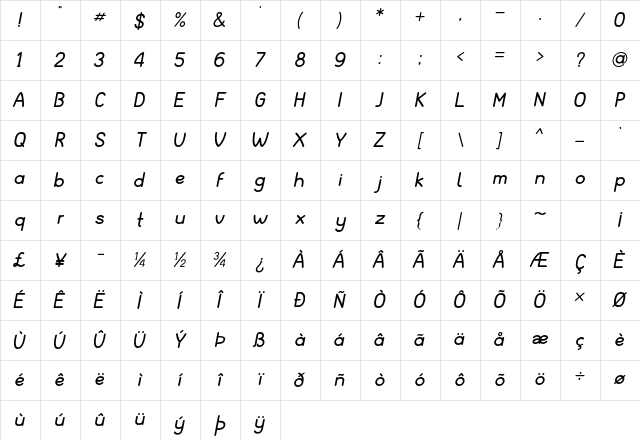
Idion is a composed and adaptable typeface that performs quietly and consistently across a wide range of design contexts. The slanted form adds forward momentum and visual energy.
Pro Tip: Use Idion for emphasis, pull quotes, and subheadings where its slanted energy can add rhythm to the layout.